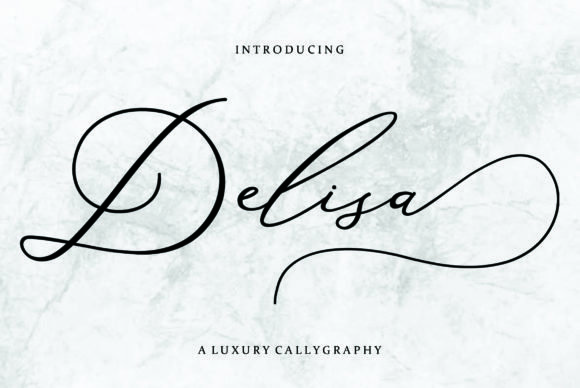
Discover the Delight of Delisa Font
Do you remember the moment when you first saw a beautifully handwritten invitation and thought, ‘I want to create something like this’? For designers and creatives, those moments of inspiration are what drive us to push the boundaries of our craft. And that’s exactly what Delisa Font is here to help you achieve. This stunning script font is perfect for adding a touch of warmth and personality to your designs.
Delisa Font is a modern handwritten font that features gorgeous swashes and ligatures, making it incredibly versatile. With its authentic feel, you can use it to create gorgeous wedding invitations, beautiful stationery art, eye-catching social media posts, and cute greeting cards. And the best part? It’s PUA encoded, so you can access all of the cute glyphs and swashes with ease.
- Unique Characteristics: Delisa features a unique blend of modern and traditional design elements, with a focus on legibility and readability. Its bold and italic styles add versatility to the font family.
Delisa Font Review
Overall, I’d say Delisa Font is a solid choice for designers looking for a modern, elegant font. Here’s what I like about it: ✨
- It has a unique and stylish feel that’s perfect for branding and creative projects.
- The font is highly legible, even at smaller sizes, making it suitable for a wide range of applications.
- The font family includes a variety of weights and styles, giving designers plenty of flexibility when it comes to choosing the right look and feel.
- The font may not be as bold or dramatic as some other options, which could be a drawback for designers looking for a more statement-making font.
- The font family is relatively limited, with only a few weights and styles available.
Overall, I’d say Delisa Font is a great choice for designers who want a clean, elegant look that’s easy to read and versatile. While it may not be the most dramatic or bold option, it’s a solid choice for a wide range of projects.
Delisa font is ideal for creating eye-catching headlines and titles in Canva.
Delisa font is perfect for creating custom typography in Photoshop and Illustrator.
Delisa font is great for adding a touch of elegance to your presentations and documents.
Delisa font is ideal for:
- Creating eye-catching headlines and titles
- Adding a touch of elegance to presentations and documents
- Customizing typography in Photoshop and Illustrator
Remember to experiment with different font sizes, colors, and styles to get the most out of Delisa font.
3 Creative Project Ideas Using Delisa Font
A beautifully designed quote poster featuring the elegant Delisa Font.